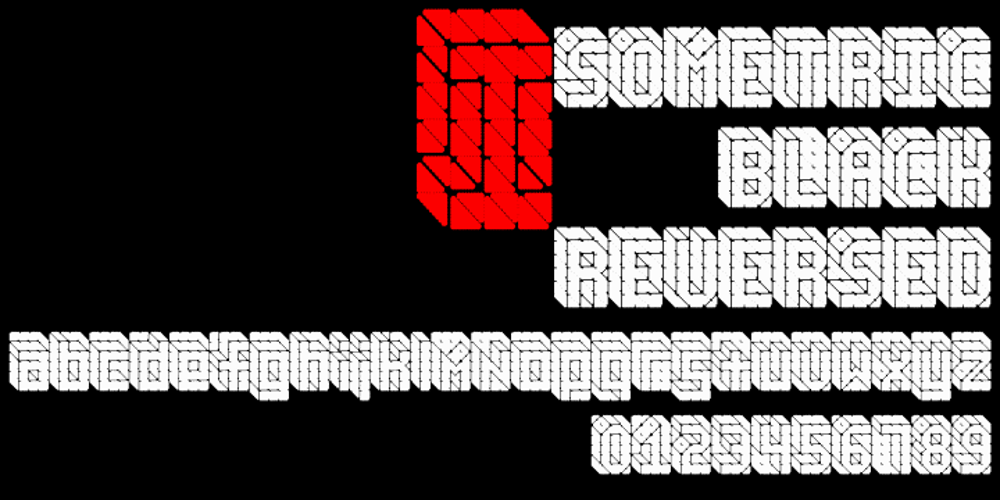
Black Isometric
Black Isometric font
Black Isometric Font Family was designed by Wilson Thomas and published by Funk King. Black Isometric contains 2 styles and family package options. The Black Isometric Family is the progression of the Isometric series from funk_king. Currently two fonts that evoke science and engineering. These are full sets with 99 characters each. Designed for use as display type and for limited text use.